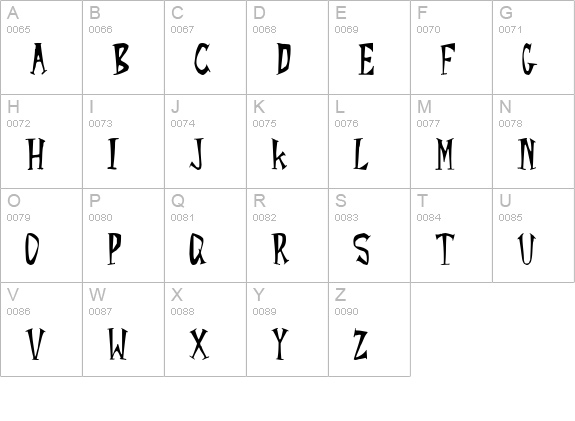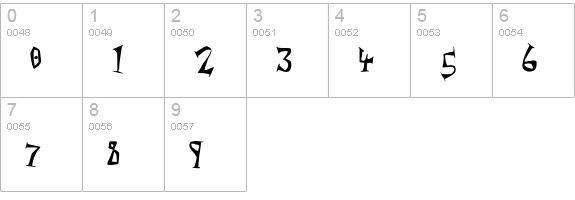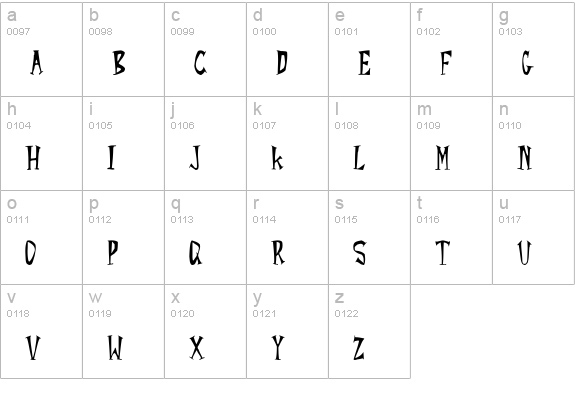
Rocket YoYo font is a whimsical and playful typeface that will add a touch of fun to any design. With its bold strokes and friendly curves, this font is perfect for projects that require a touch of creativity and energy. Whether you're working on a poster, logo, or website, Rocket YoYo font will bring a sense of dynamism and excitement to your text. The best part? Rocket YoYo font is available for free download at FontsMarket.com. So, you can easily add this unique font to your collection without breaking the bank. Don't miss out on the opportunity to enhance your designs with the charm and character of Rocket YoYo font. Download it today and let your creativity take off!